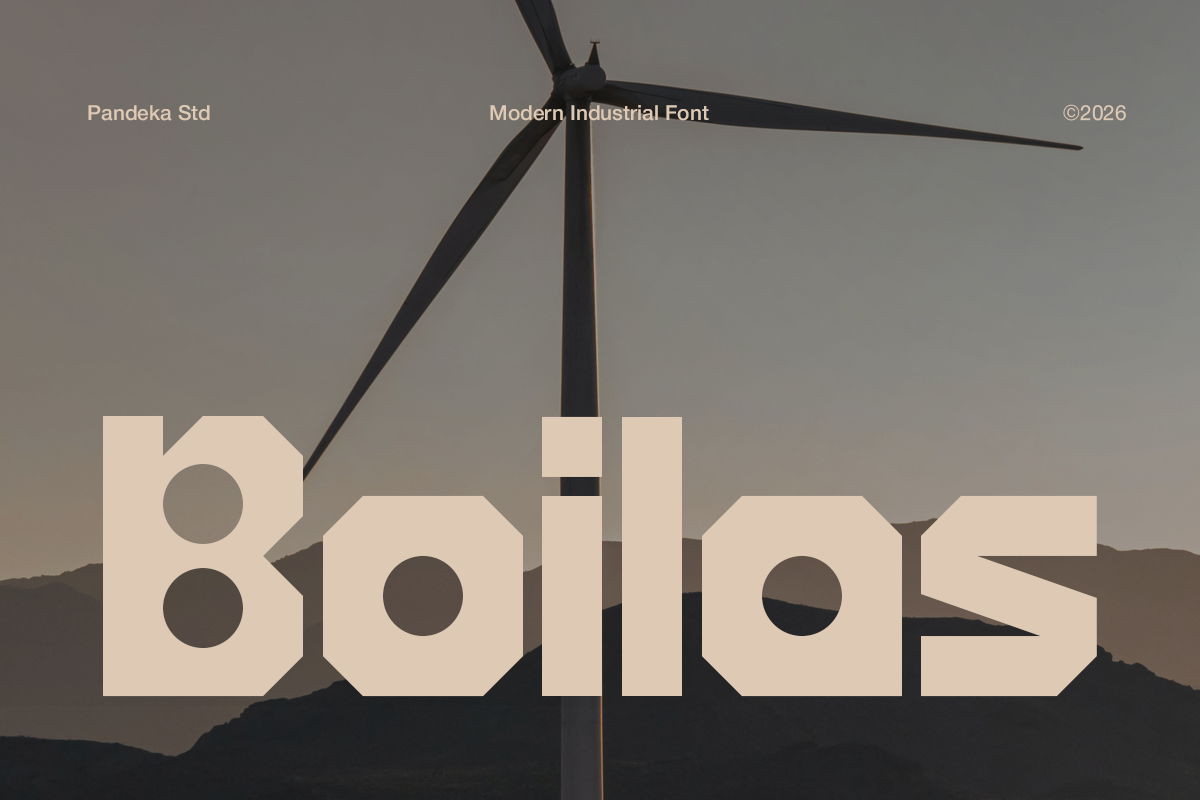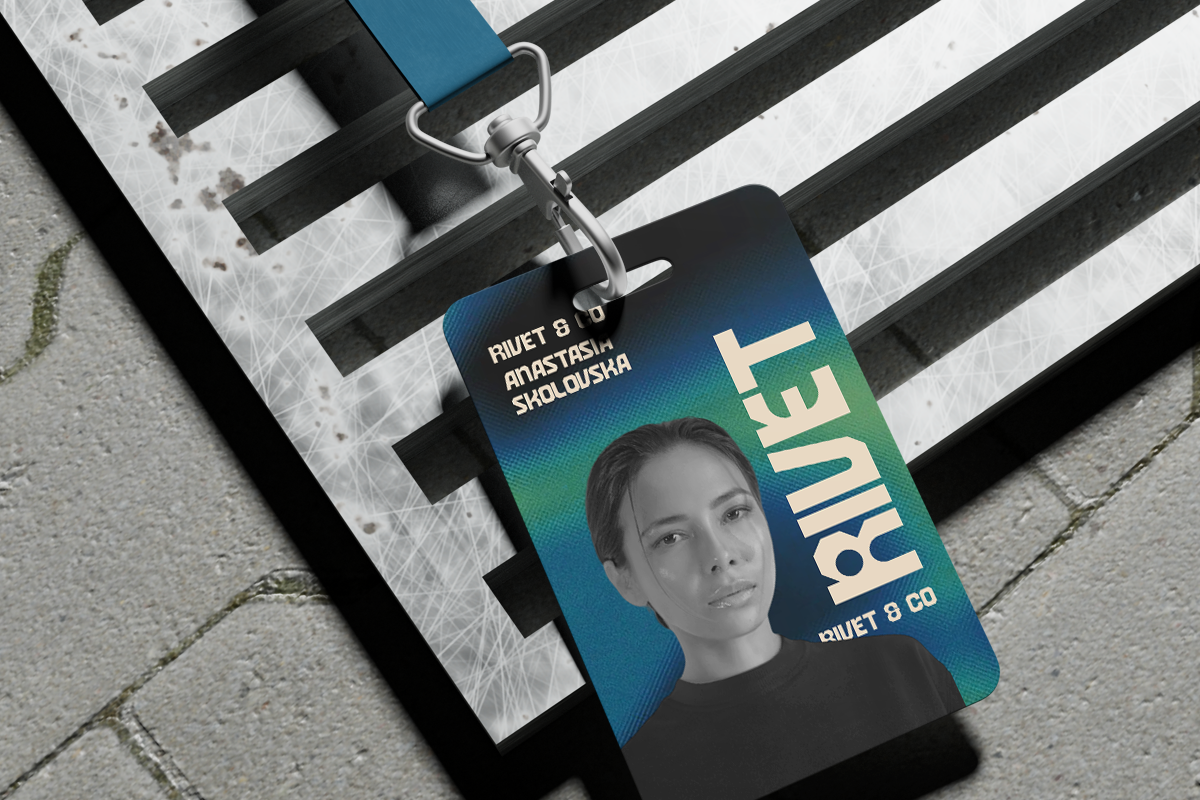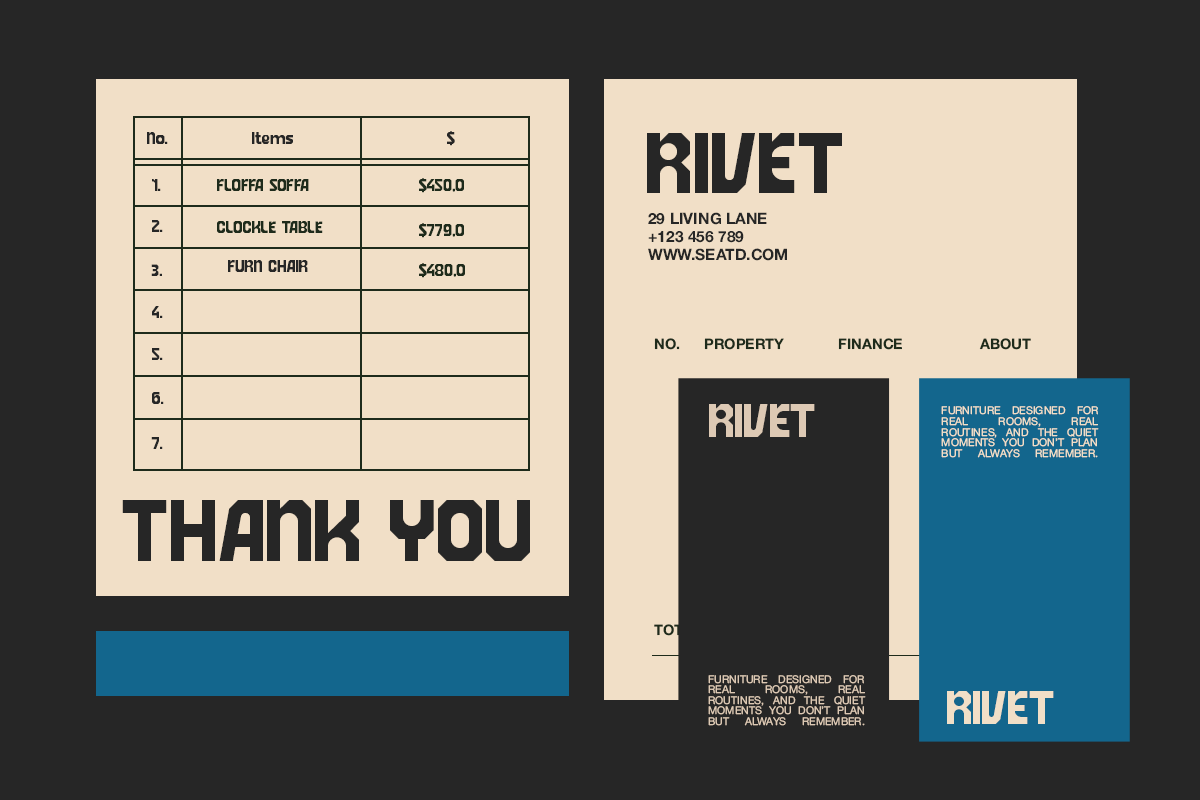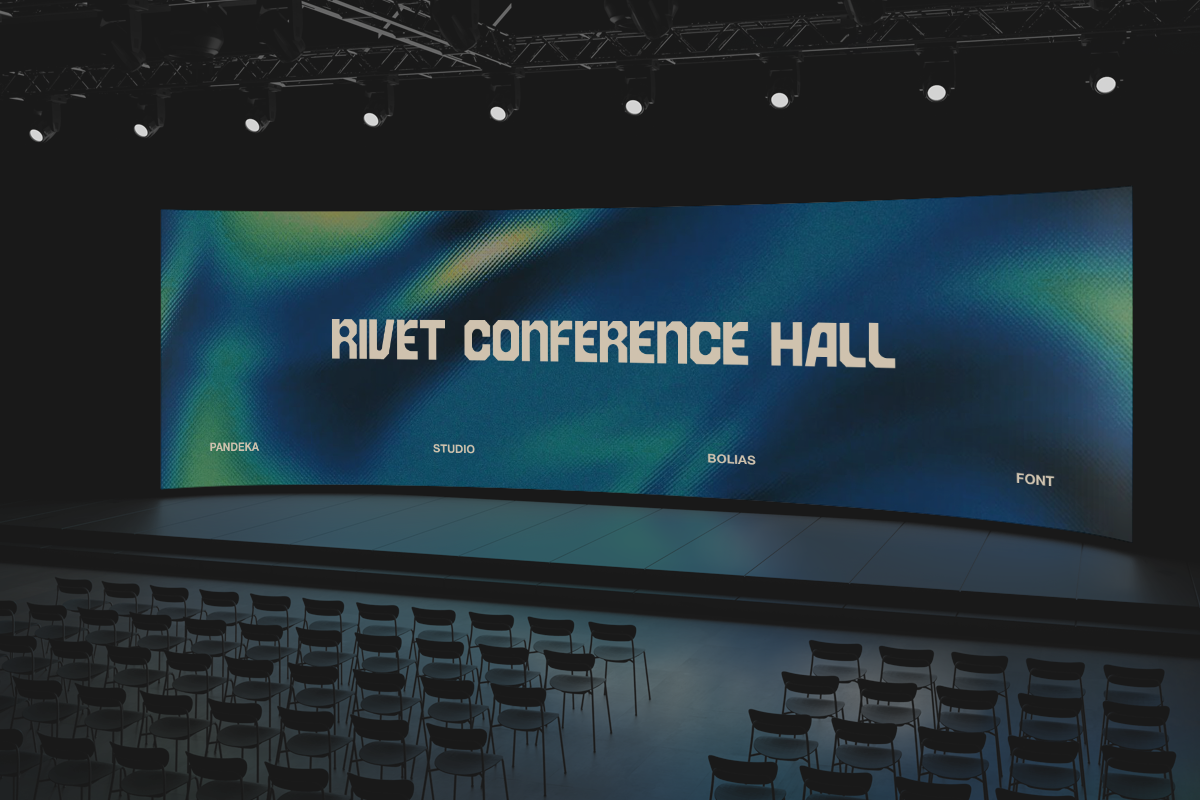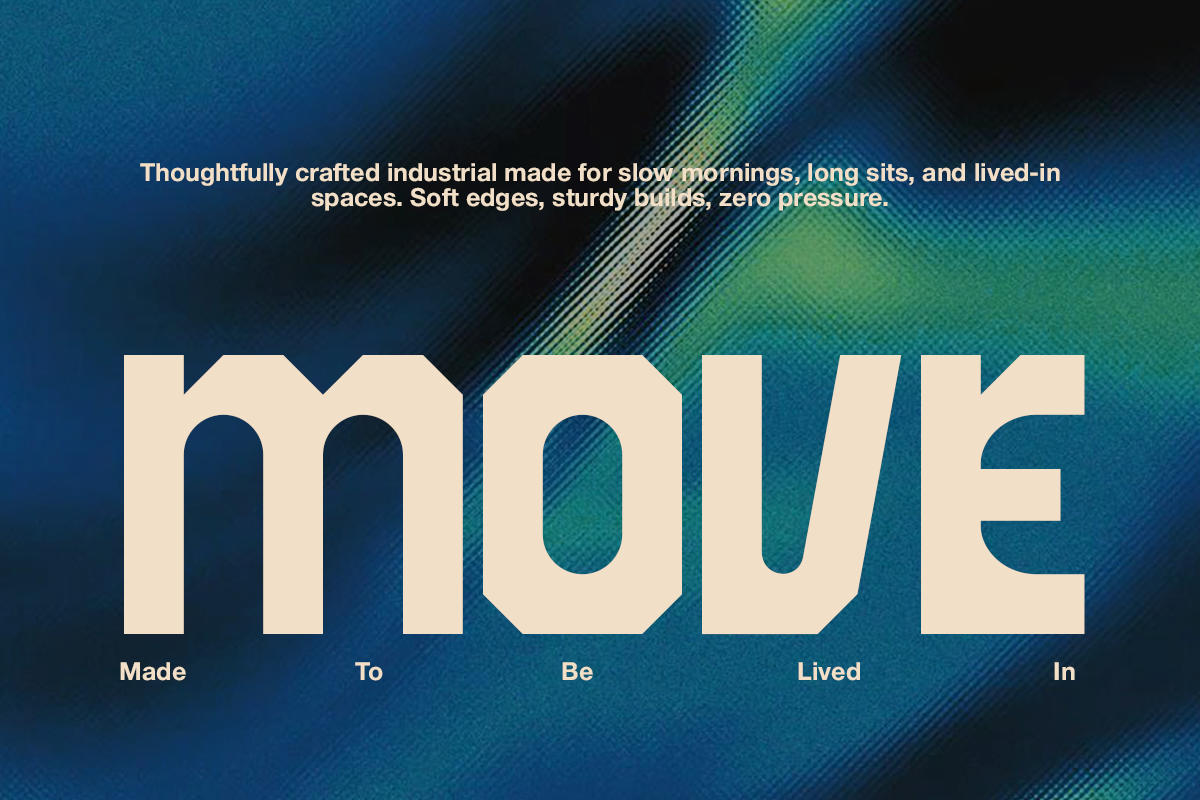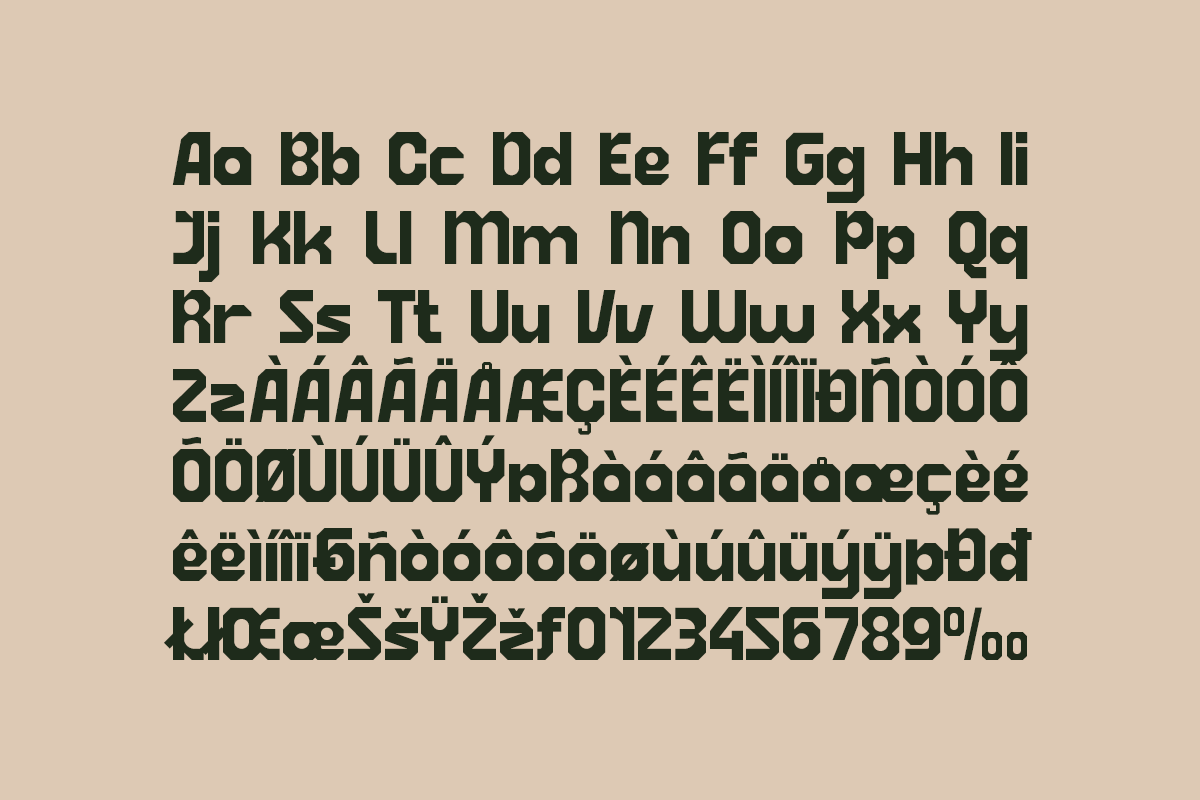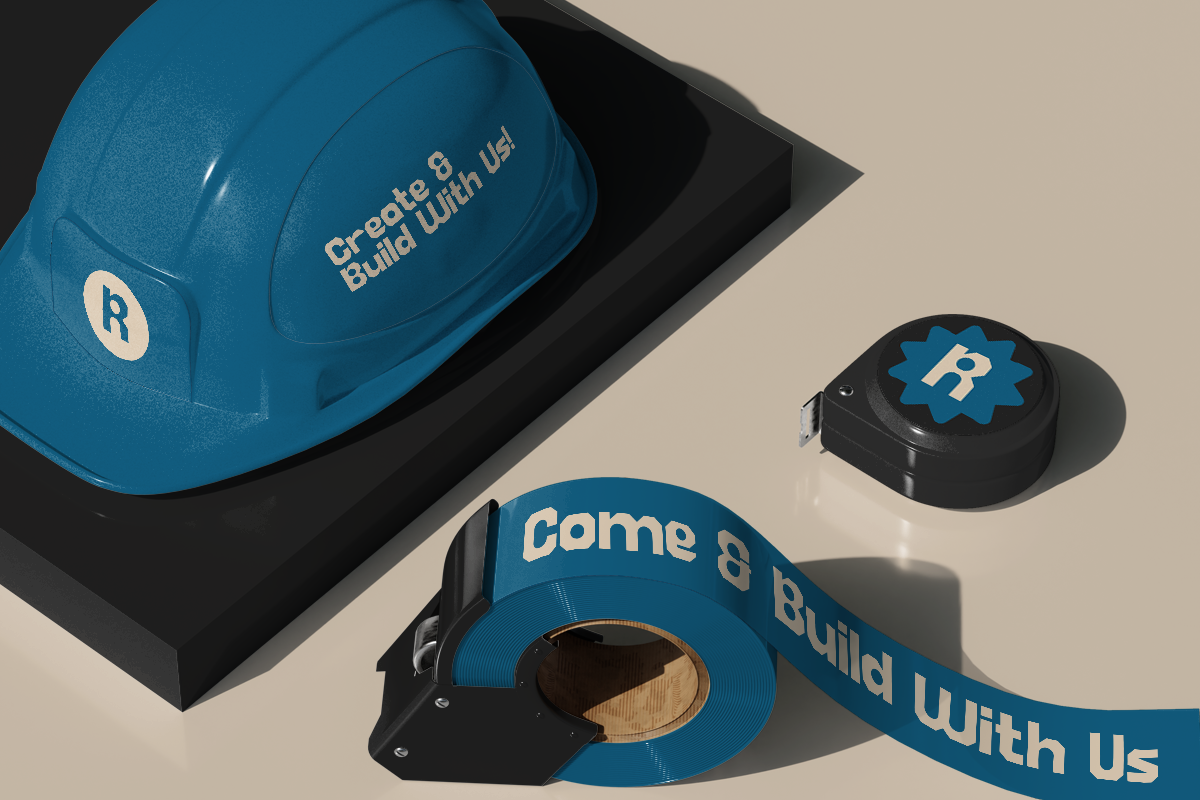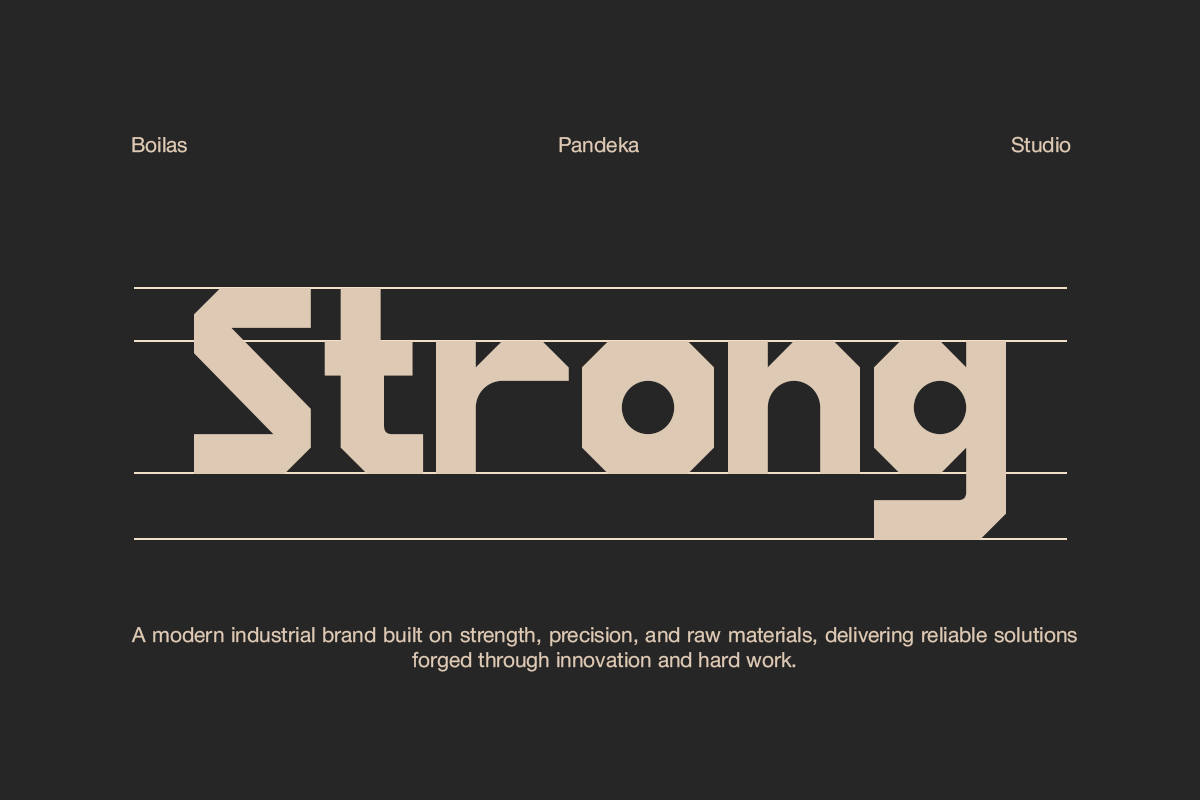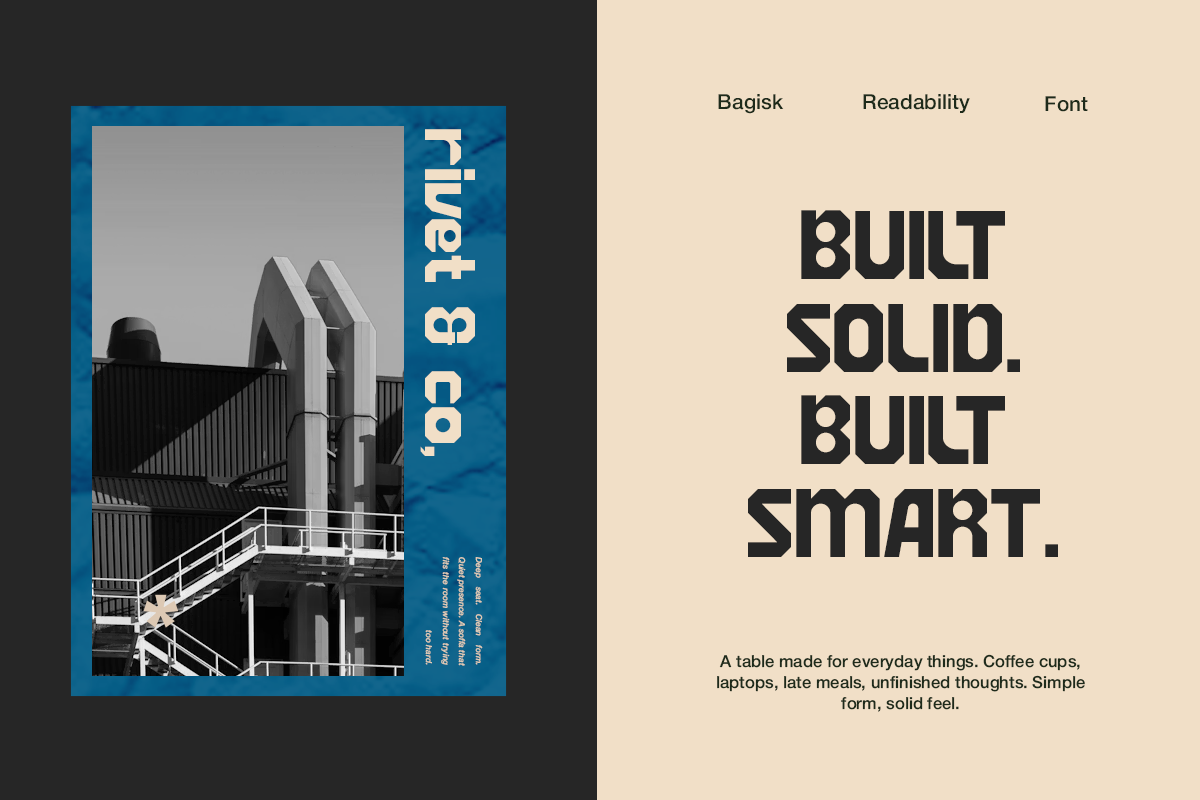
Boilas - Modern Industrial Font
Boilas is a strong and bold display font inspired by modern industrial design, construction systems, and structural engineering aesthetics. With its solid letterforms, firm geometry, and powerful presence, Boilas delivers a tough, confident, and professional look, perfect for brands that want to communicate strength and reliability.
Available in 1 style: Regular, Boilas includes uppercase & lowercase letters, numerals, punctuation, and multilingual support. Its impactful design makes it ideal for industrial branding, construction companies, engineering firms, manufacturing businesses, conference signage, posters, corporate identities, packaging, uniforms, and bold headline compositions.
Boilas brings a solid, structured, and modern industrial character to any design project.
- Full Character Set: Uppercase, lowercase, numbers, symbols, and punctuation